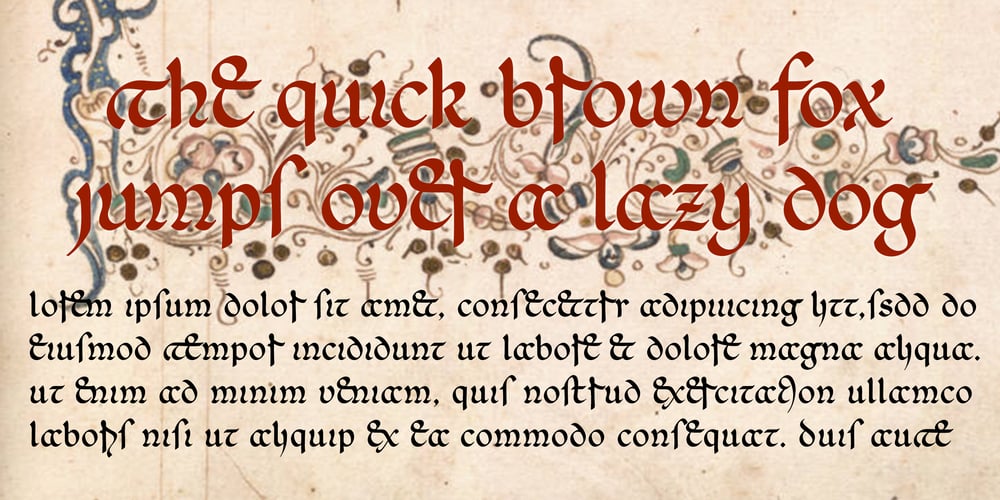
Agedage Beneventan Font Family was designed by published by Dharma Type. Agedage Beneventan contains 1 styles and family package options. Beneventan is the script that was in use in Southern Italy and Dalmatia from the 8th to 14th centuries, Agedage Beneventan is a Opentype font supporting some opentype layout features. To use these functions, you need to use an application which supports OpenType advanced features such as Adobe InDesign CS, Illustrator CS and Photoshop CS. We strongly recommend: Standard Ligatures : ON Discretionary Ligaures : ON In addition, the font includes: – Lining Figures – Swash – Ordinals – Numerators, Denominators and Fractions and a few alternates